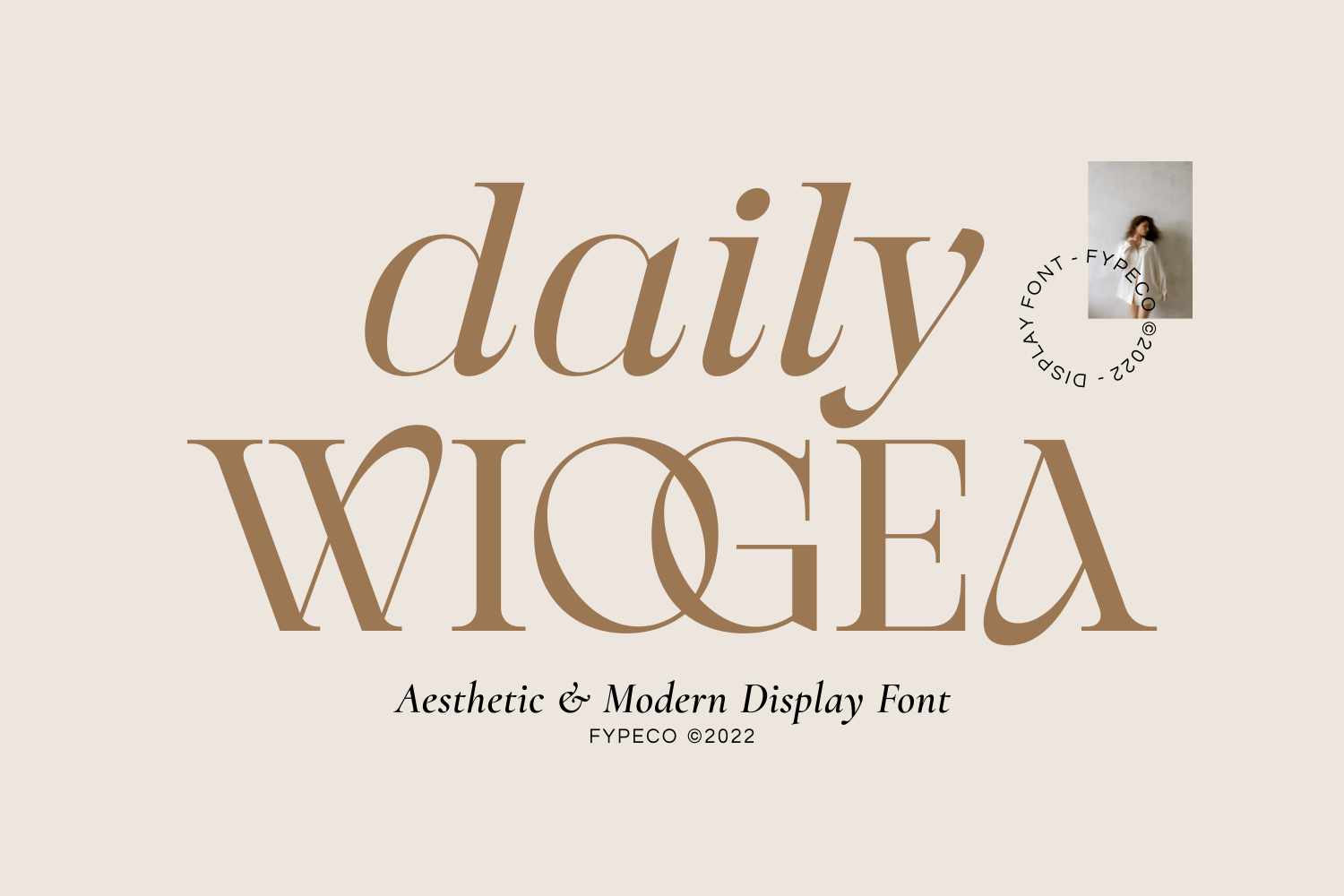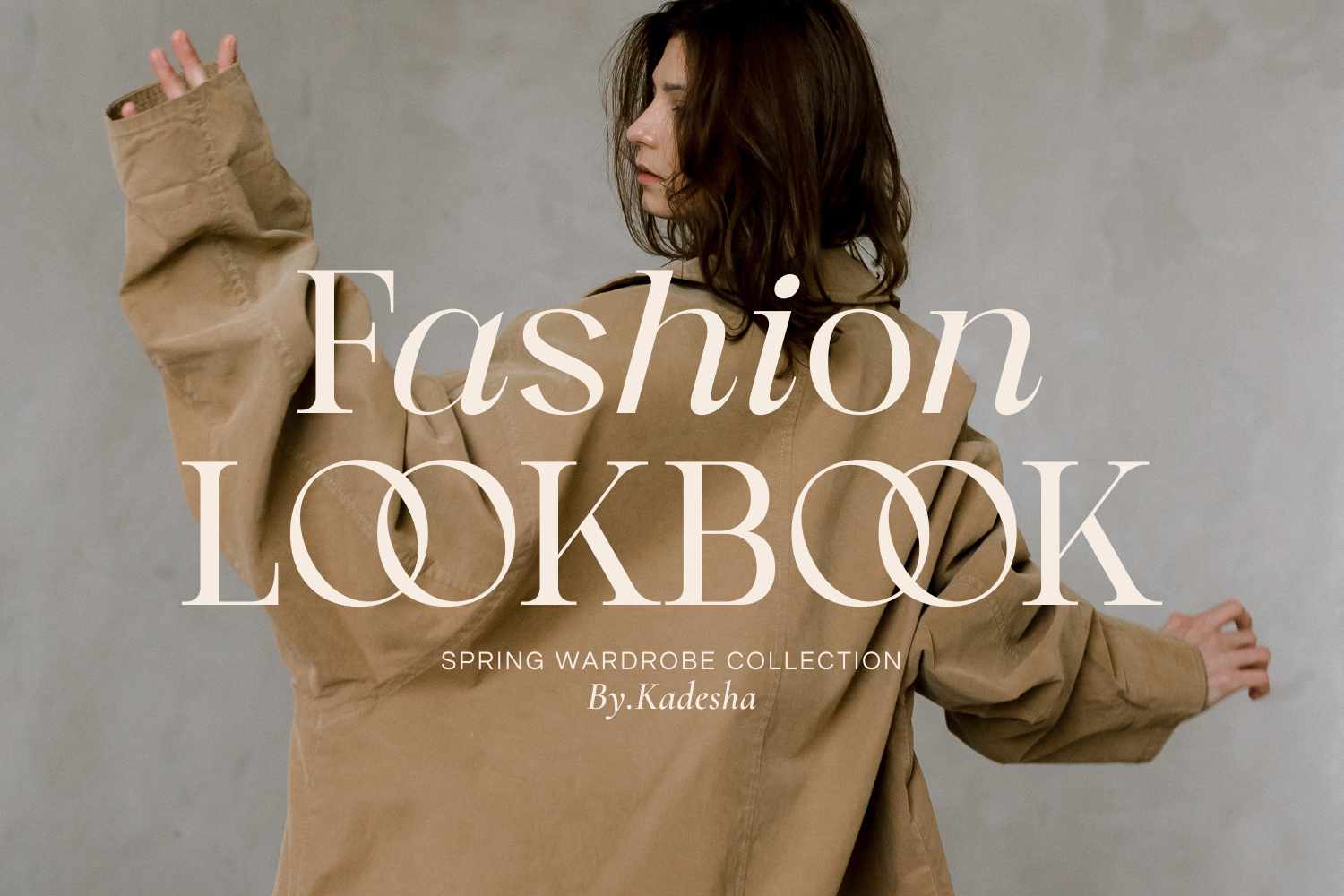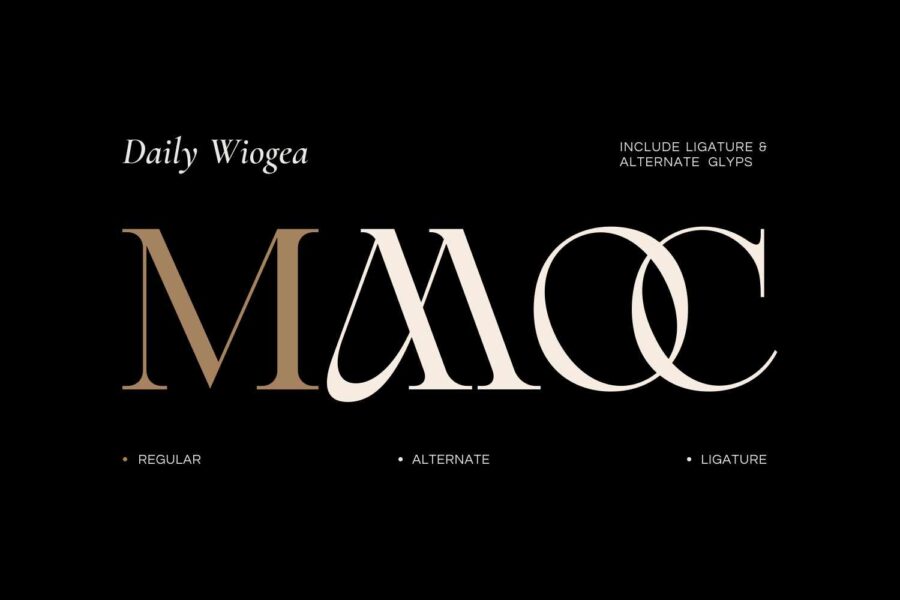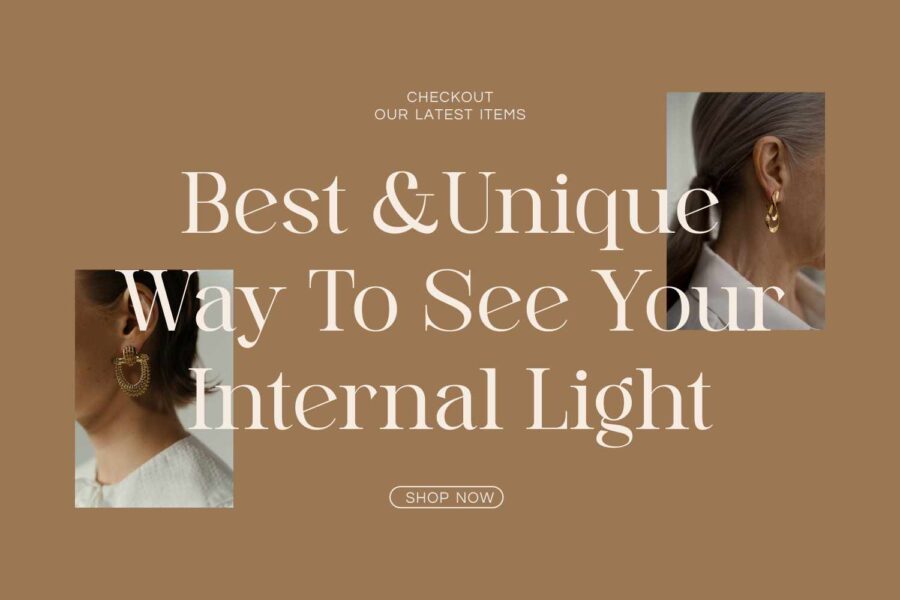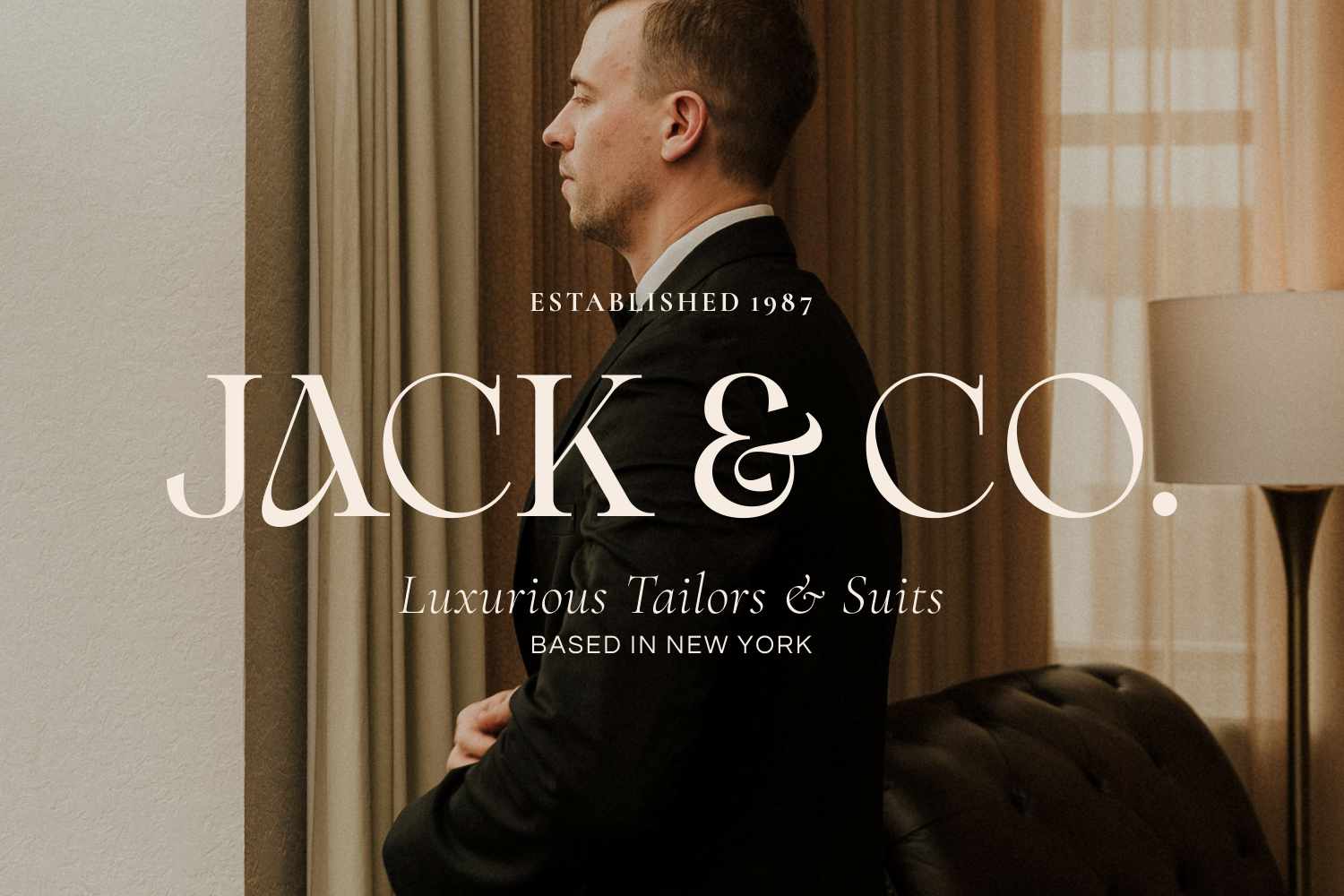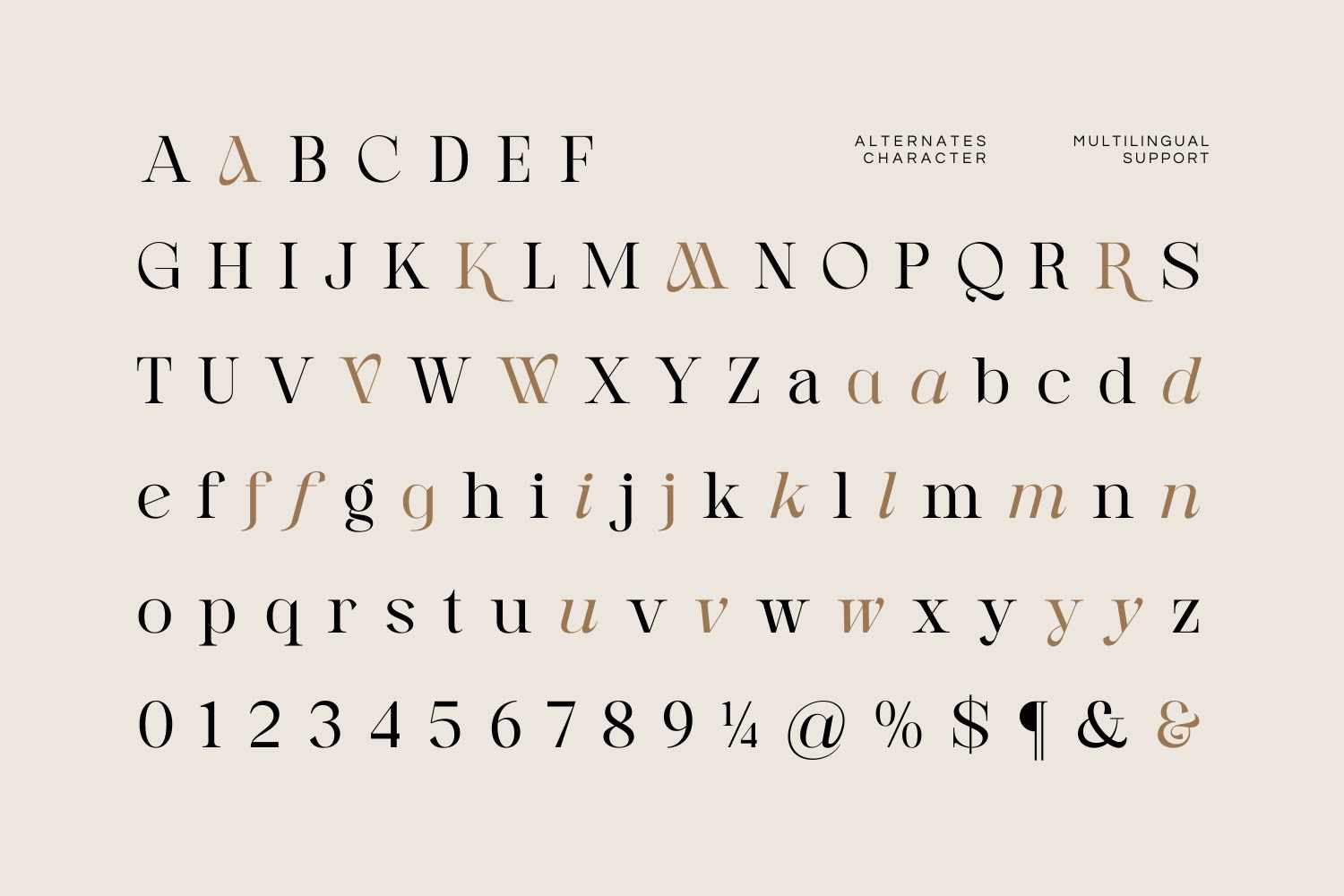
Daily Wiogea
Glyphs for Daily Wiogea
Daily Wiogea is an aesthetic and modern serif display font that blends timeless elegance with creative details. With its refined contrasts, graceful curves, and unique alternates, this typeface exudes sophistication while adding a bold and contemporary personality to your design. Perfect for fashion branding, luxury packaging, stylish editorials, and elegant logo projects, Daily Wiogea instantly elevates visual storytelling with a premium touch.
Featuring a wide range of ligatures, stylistic alternates, and multilingual support, Daily Wiogea offers versatile options to make every project stand out. Whether for magazines, wedding invitations, high-end advertising, or interior design portfolios, this font brings a harmonious balance between classic beauty and modern artistry. With Daily Wiogea, every design becomes an expression of style, elegance, and creativity.